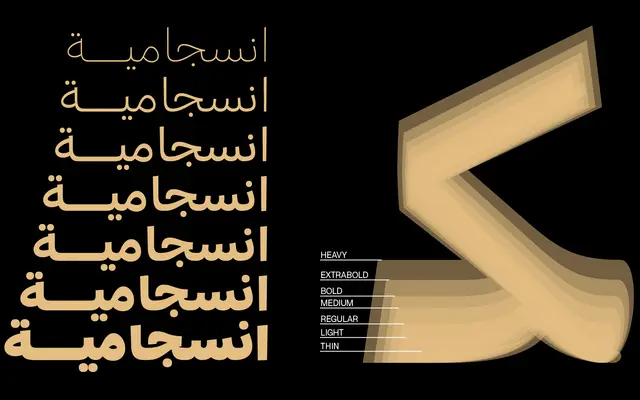
Milligram Arabic
Zetafonts · Cosimo Lorenzo Pancini, Murad Alshawareb · 2025
An Arabic companion to Milligram, drawn through the lens of Naskh script to create a bilingual sans-serif system for editorial and complex design work.
Designed by Cosimo Lorenzo Pancini with Jordanian type designer Murad Alshawareb, Milligram Arabic approaches Arabic script not by matching Latin shapes but by preserving Naskh rhythm and proportions while simplifying contrast and terminals. Seven weights from Thin to Heavy are available alongside a variable font, covering 207 languages across Latin and Arabic. The family pairs with the 106-style Latin Milligram to form a coherent bilingual system designed as a whole rather than a pairing of separately conceived typefaces.
A sans-serif rooted in Naskh script traditions, prioritising texture and readability over rigid geometric equivalence with simplified contrast and terminals. Designed as an Arabic companion to the Latin Milligram grotesque.